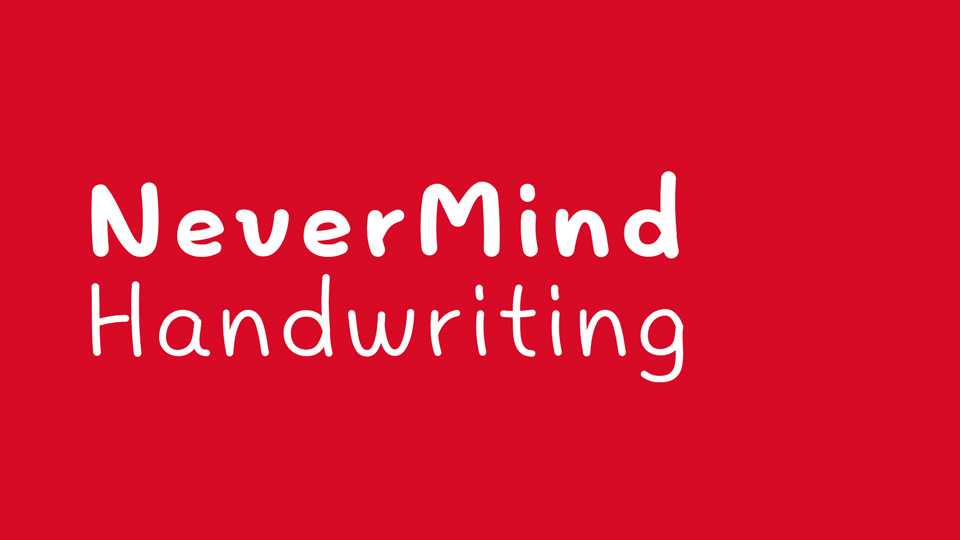
Download Nevermind Handwriting font, a comic hand drawn typeface that captures the essence of dynamic motion and lively emotion. Funny and playful, it can be used for all types of communication.
Designer: XMind Ltd.